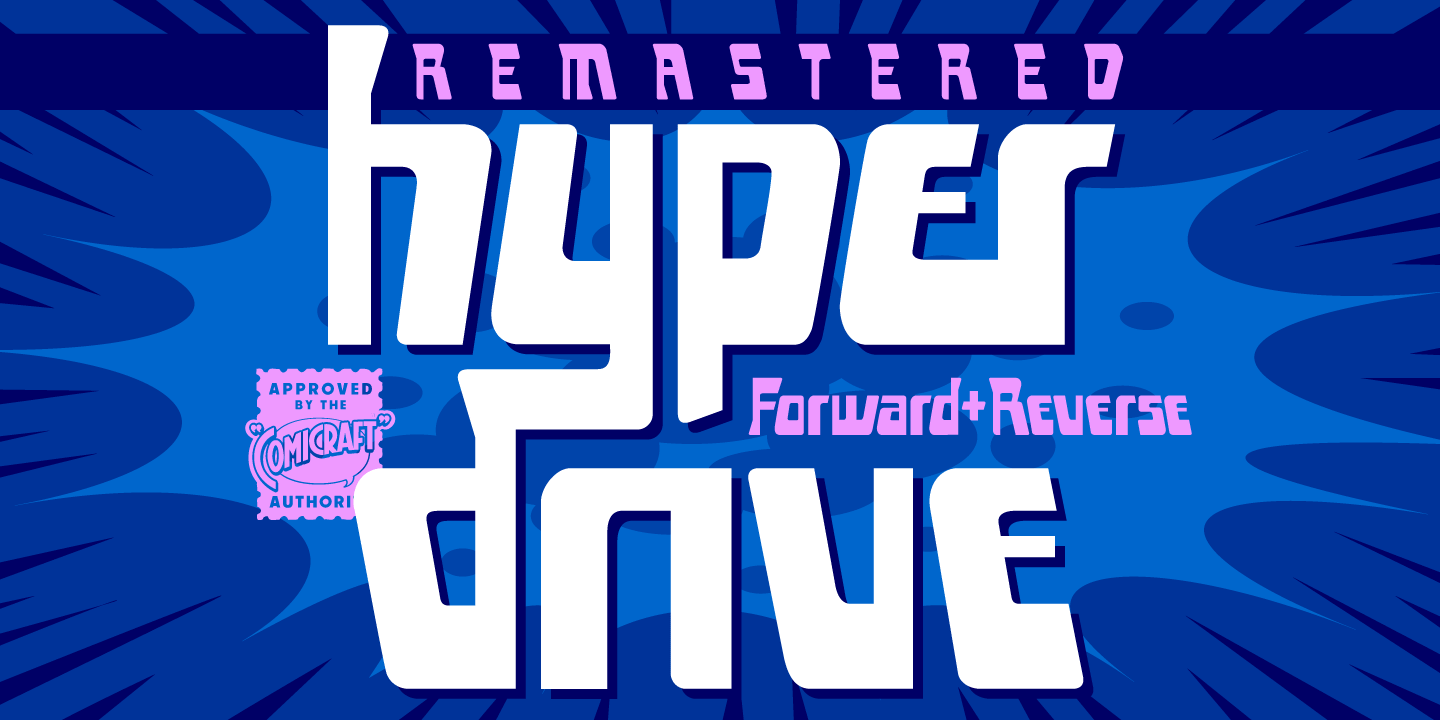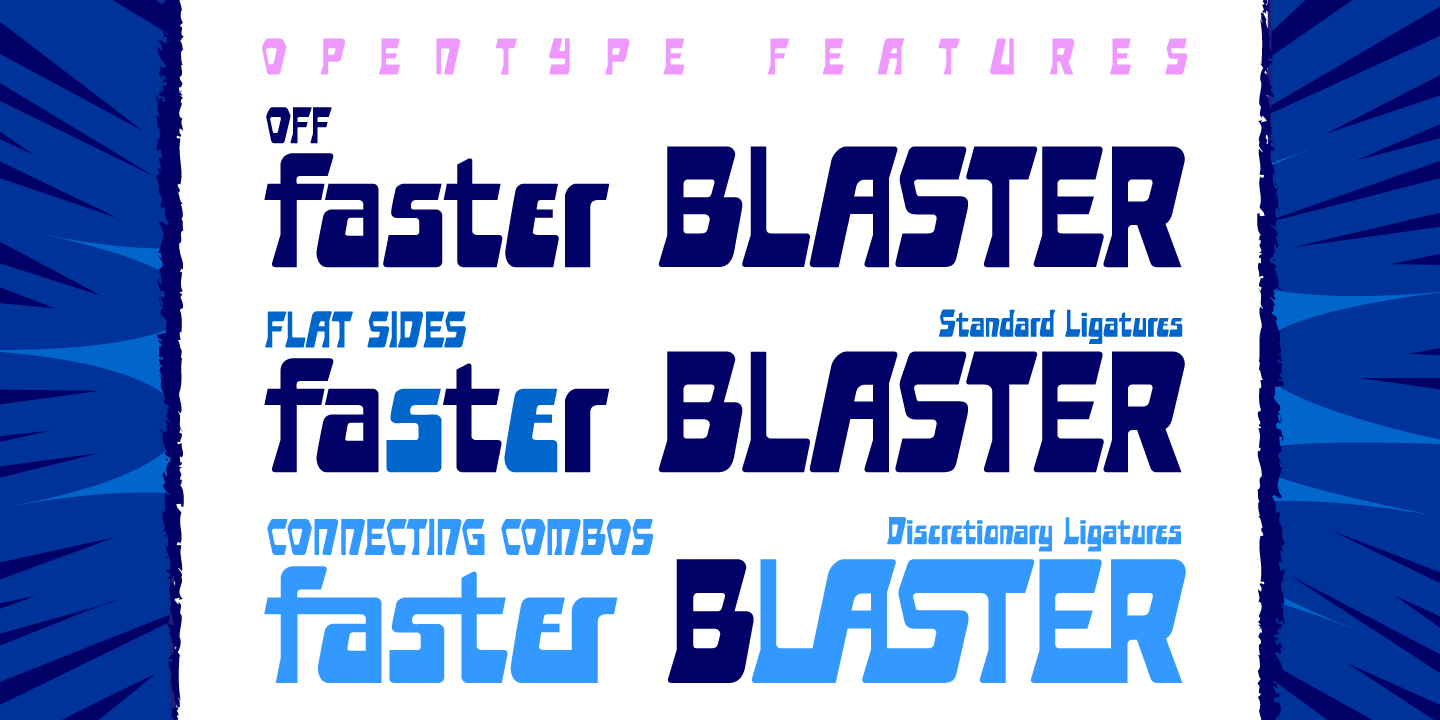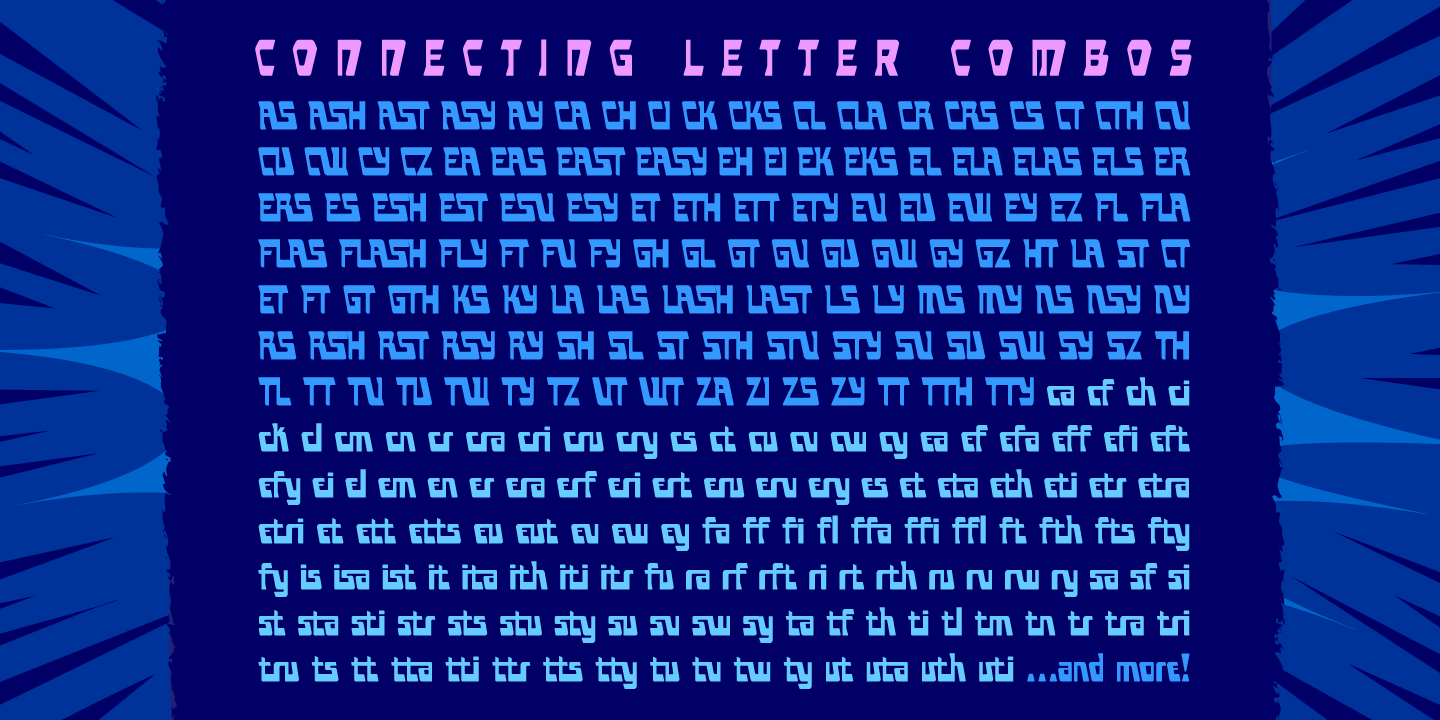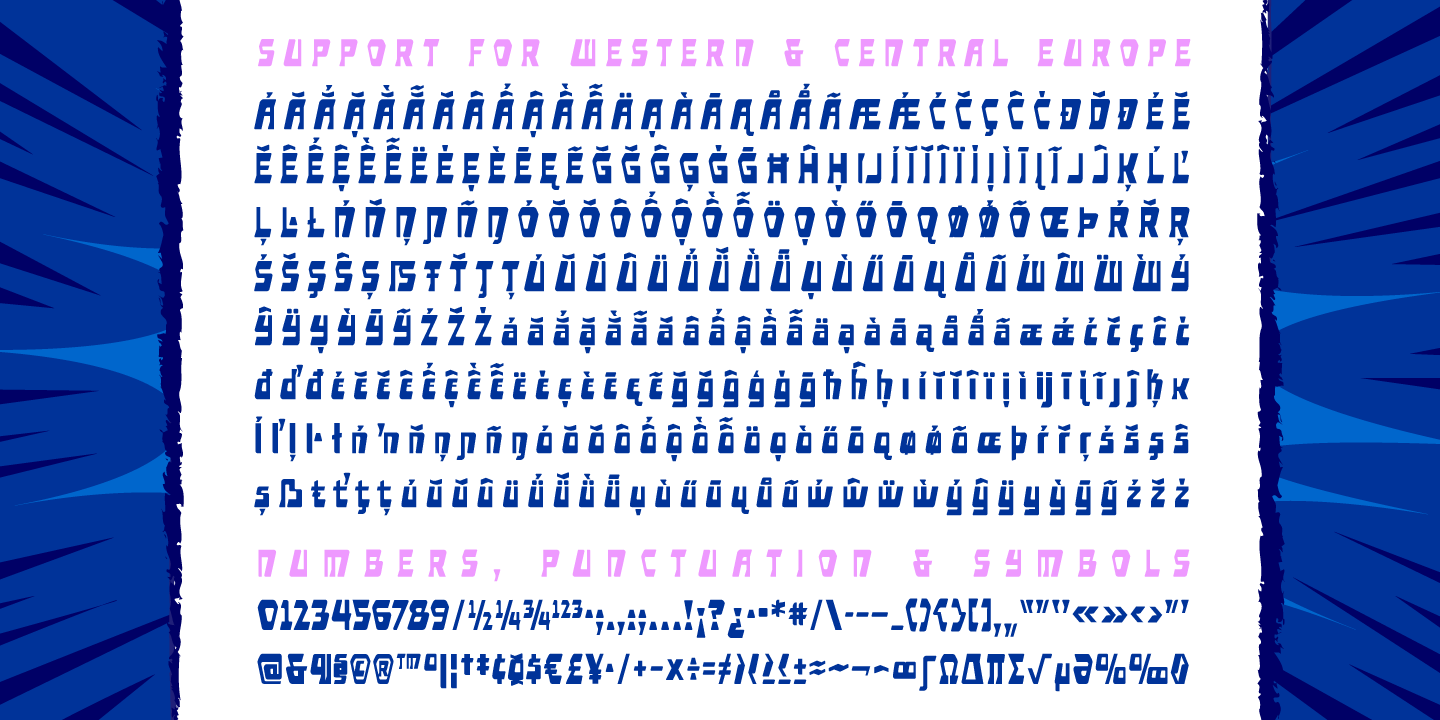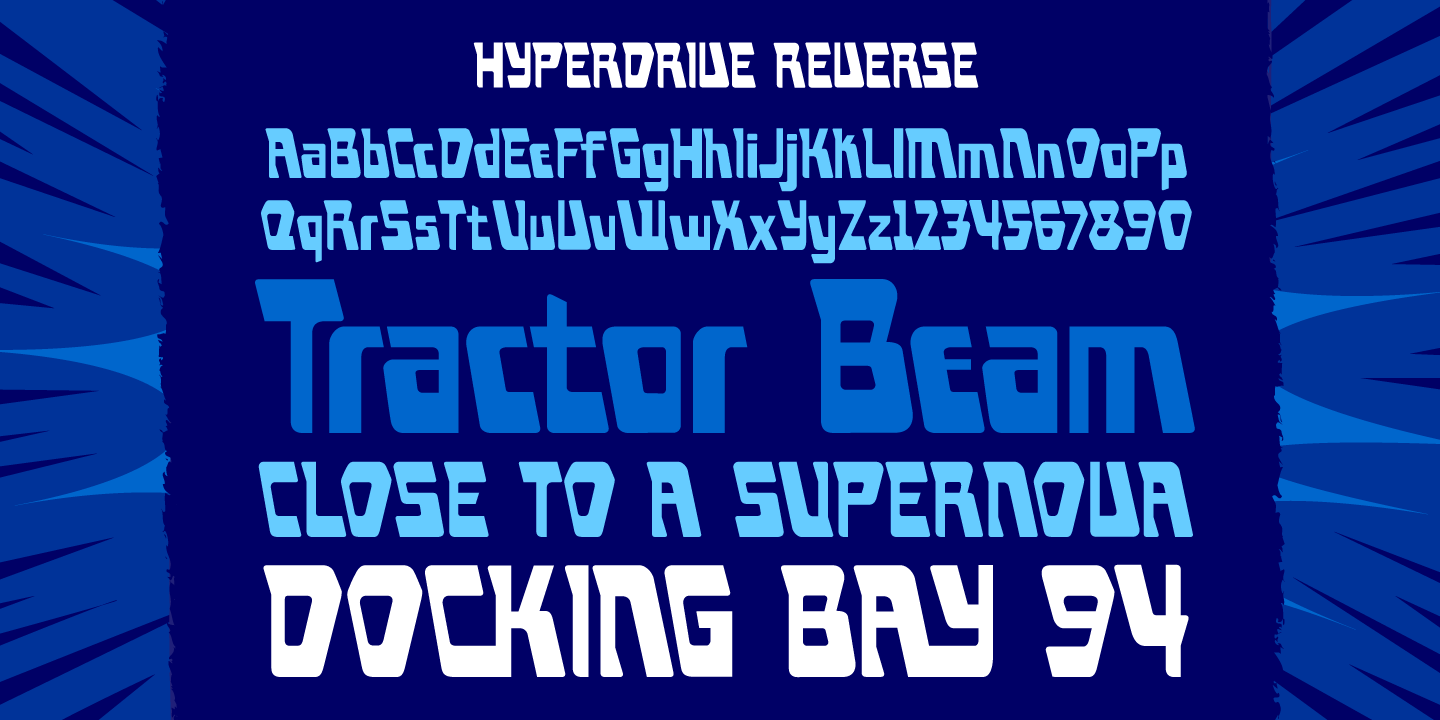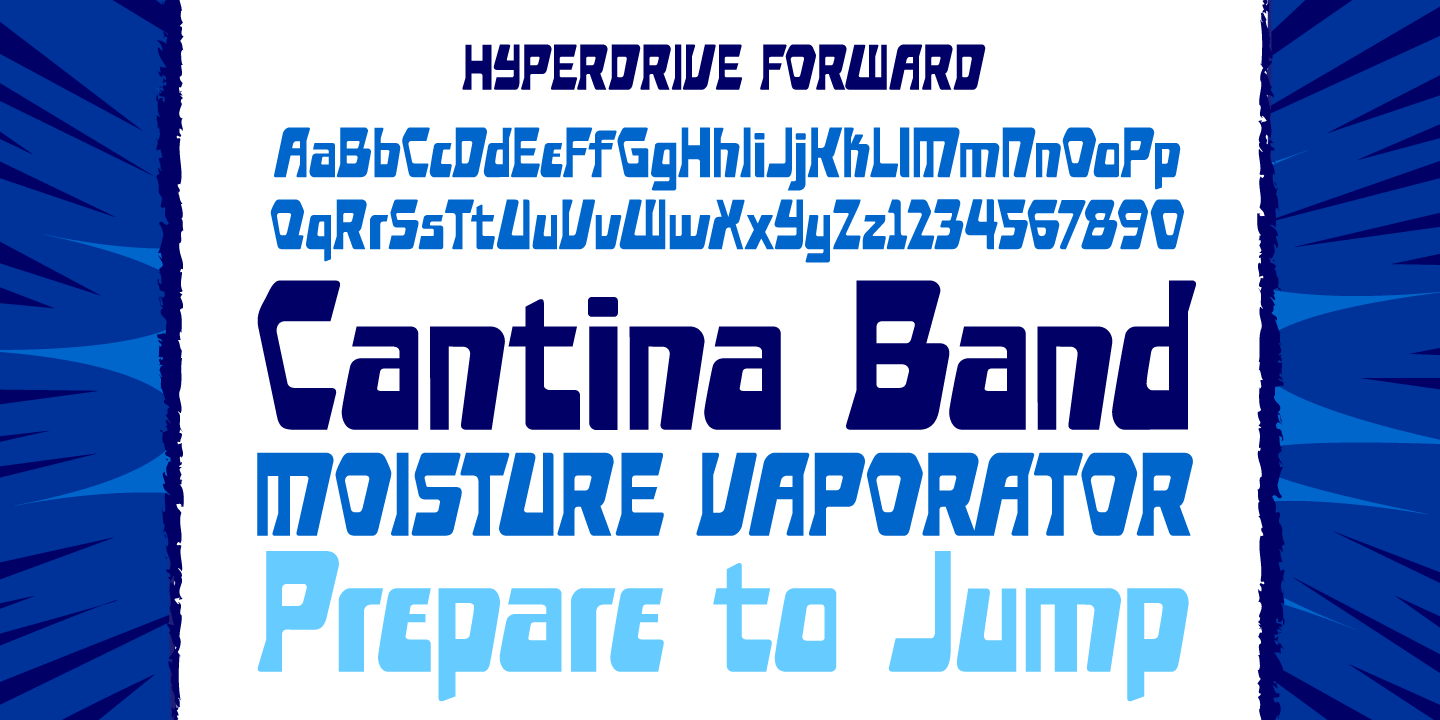
Hyperdrive
Font Family by Comicraft Fonts
If you're about to make the jump into hyperspace, buckle up and engage your R2 unit with HYPERDRIVE! Ten years in the making, we've spent almost as much time developing these characters as George Lucas spent developing his! Co-created by Starkings & Roshell (HYPERDRIVE, not George), this font is guaranteed to keep TIE fighters off your tail and will always come in useful if you get menaced by phantoms or attacked by clones. So sit back, relax and enjoy the flight -- but don't forget; let the Wookiee win.